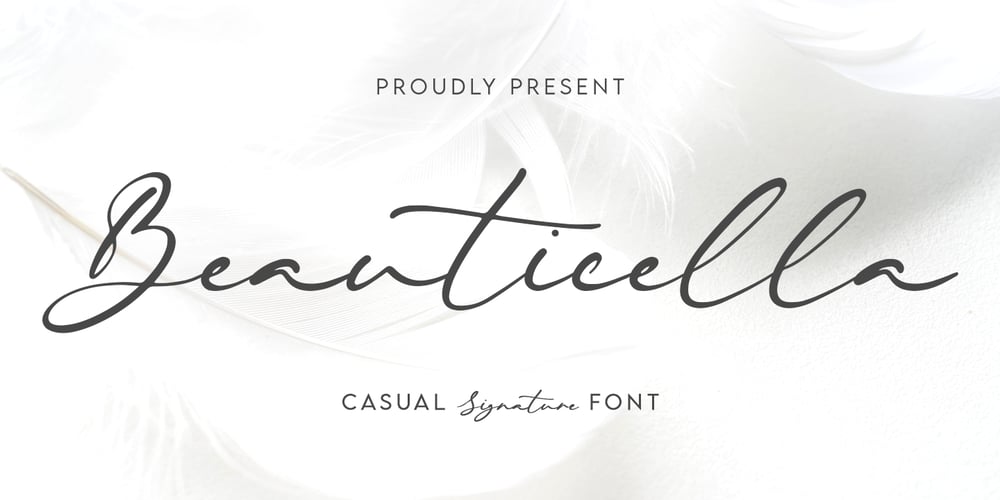
Beauticella Font Family was designed by Abdul Malik Wisnu and published by Almarkha Type. Beauticella contains 1 styles and family package options. Introducing Beauticella – Casual Signature Script is a Quality script that is written casually and quickly with 12 ligature. Letters are made with Sign on paper. Then scanned and carefully drawn into vector format.Beauticella is perfect for homeware designs,branding projects, Logo, design, Quotes, Product packaging, Photography, Watermark.